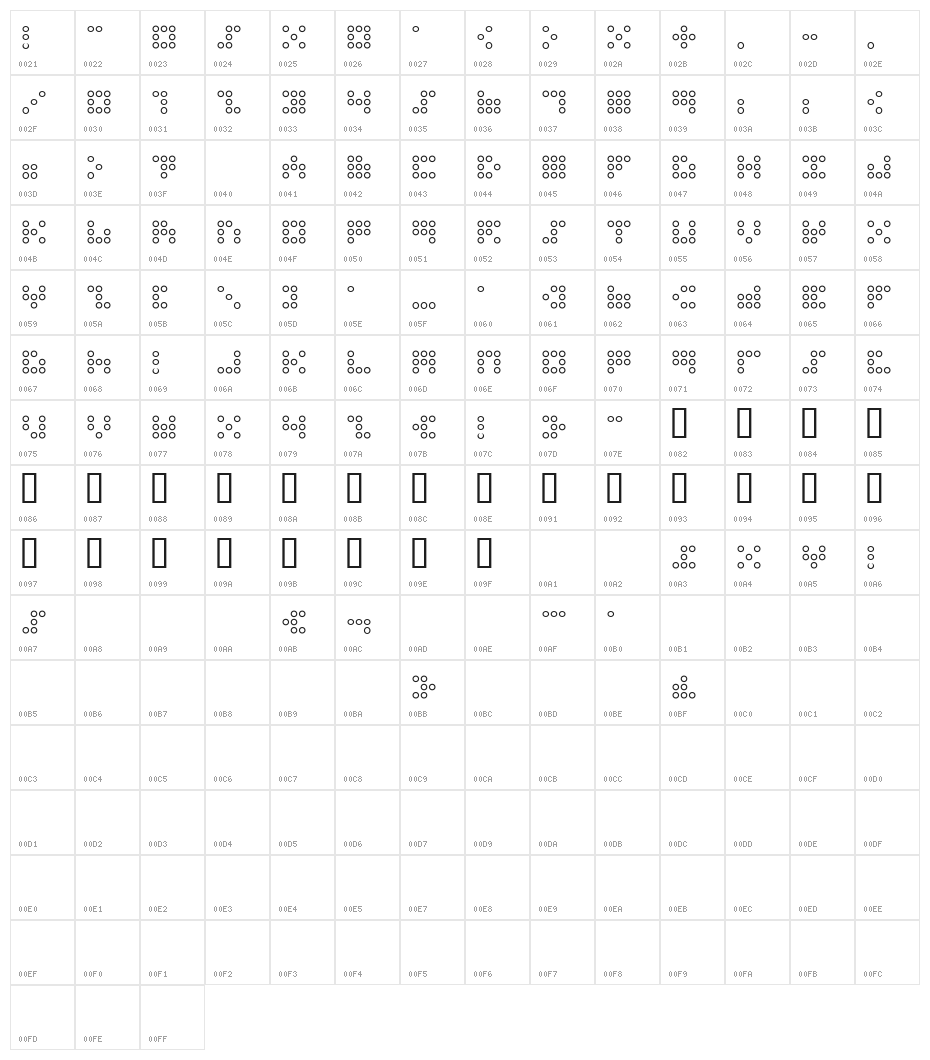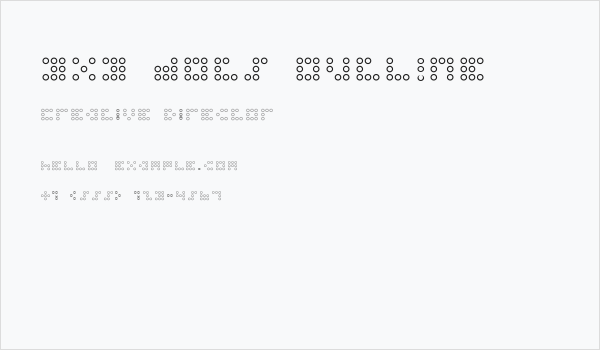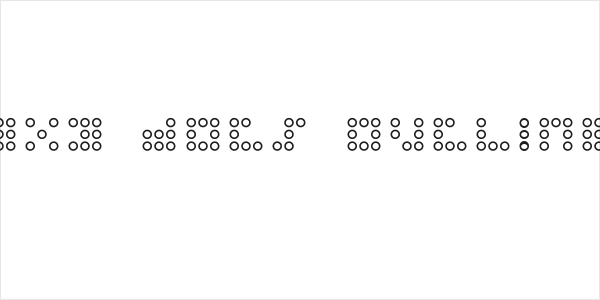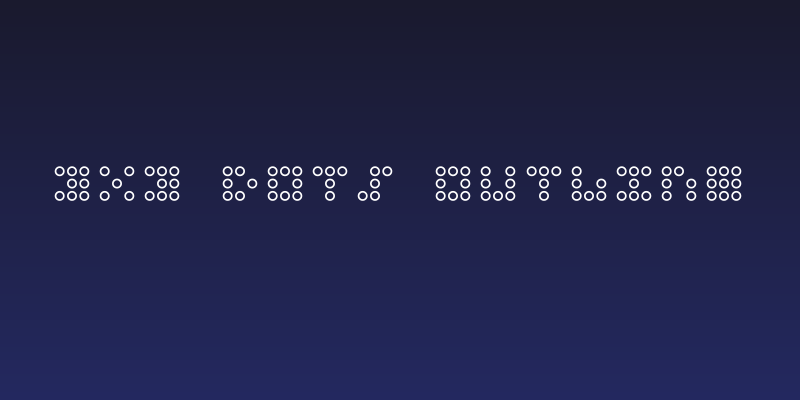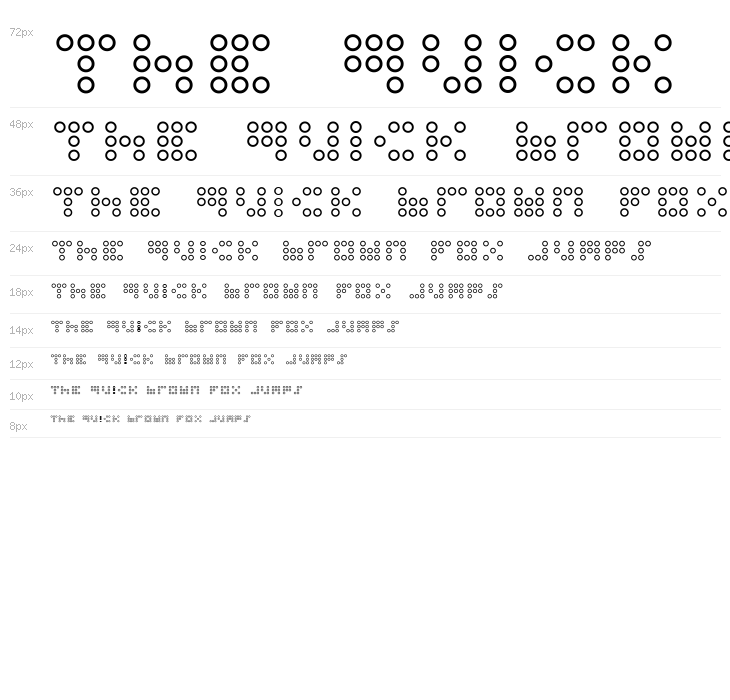
3x3 dots Outline Font
3x3 dots Outline Description
This design features a unique representation of characters using a 3x3 dot matrix outline. Each character is formed by arranging small circles in a grid pattern, creating an abstract and modern look. The style is reminiscent of digital or electronic displays, offering a futuristic and tech-inspired aesthetic. The characters are evenly spaced, ensuring clarity and readability despite the unconventional design. This font is particularly suitable for creative projects that aim to convey a sense of innovation and modernity.
| Use Case | Logos, Digital displays, Creative posters |
| Proposed Projects | Ideal for digital art, tech branding, futuristic posters, and electronic-themed designs. |